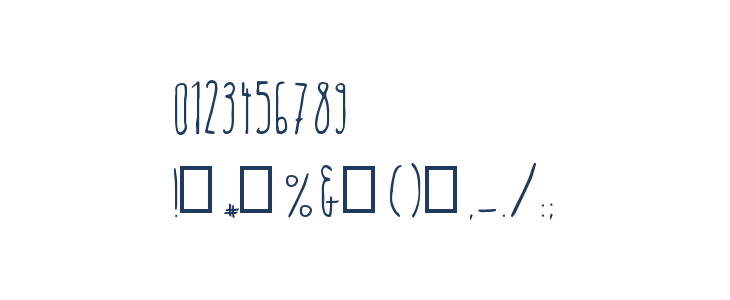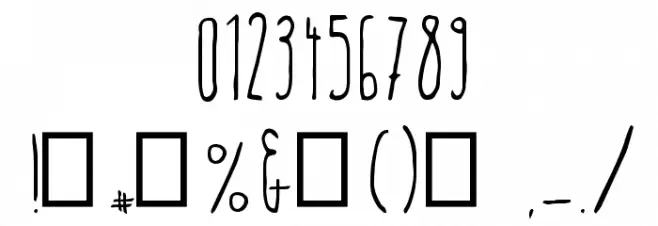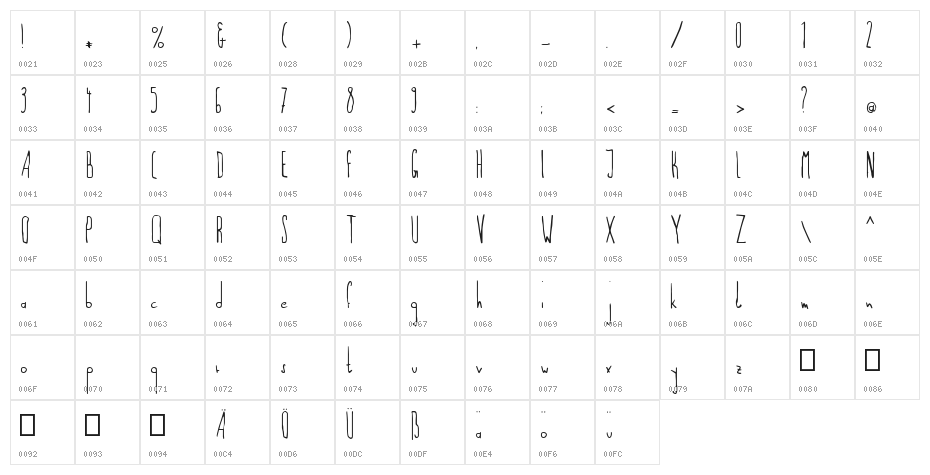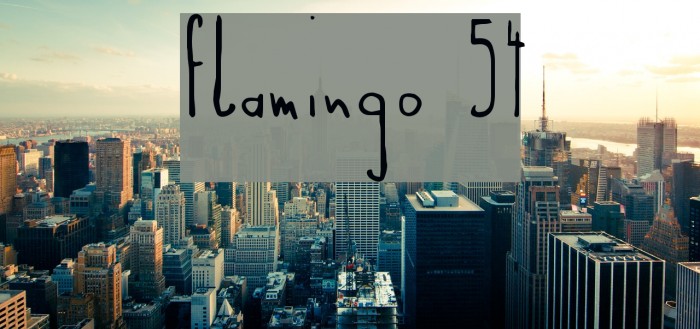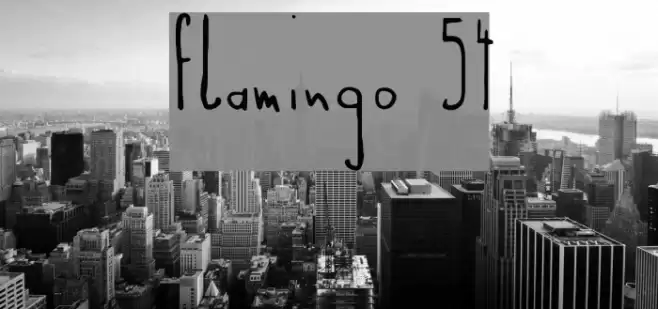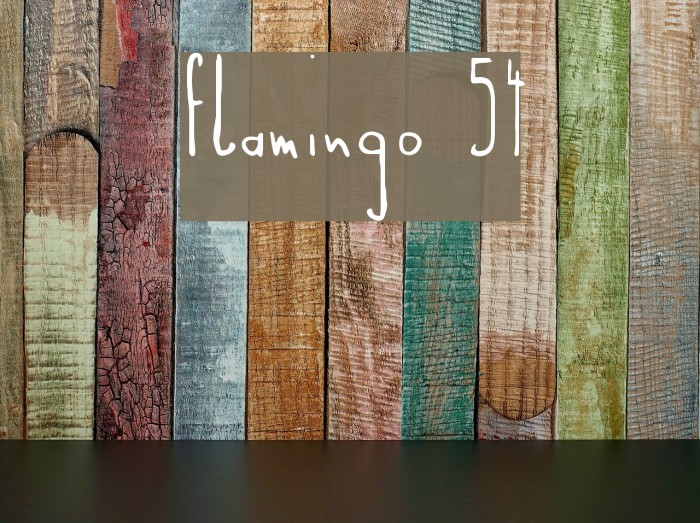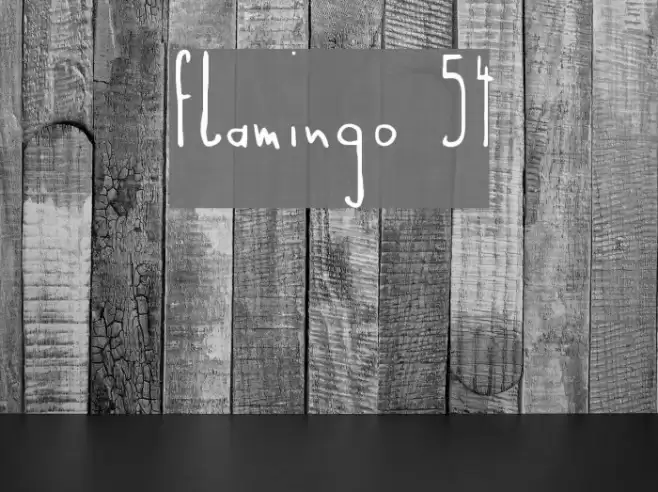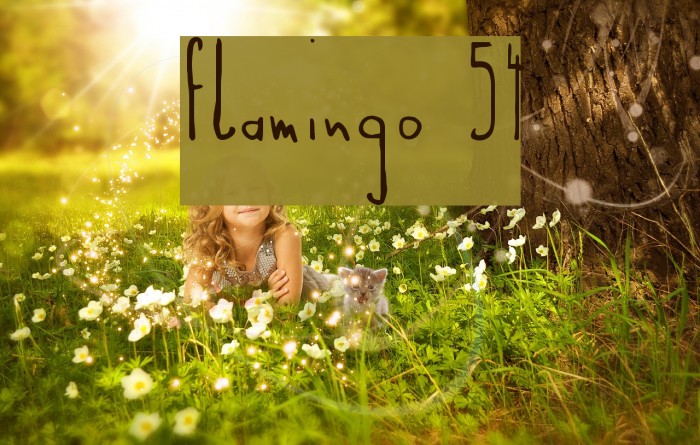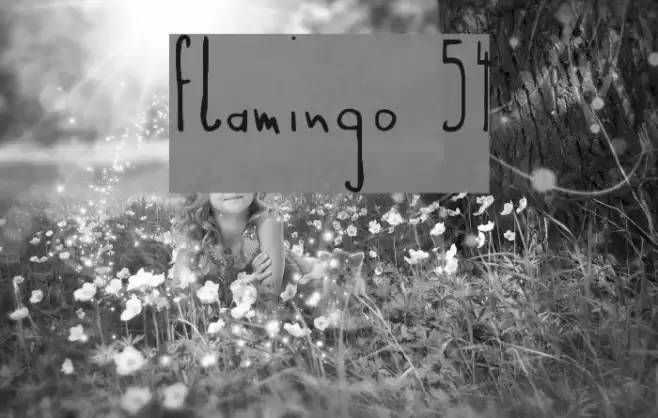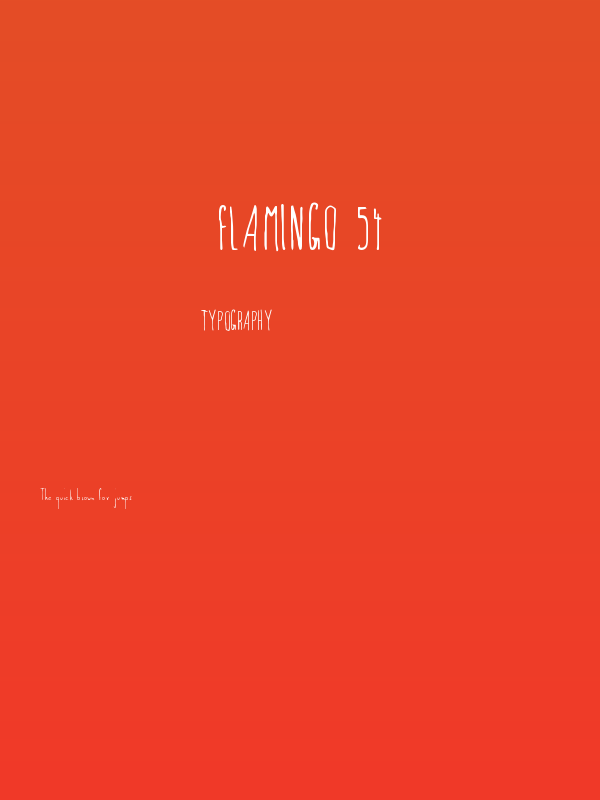
Flamingo 54 Font
Flamingo 54 Description
This font features a playful and whimsical style, characterized by its irregular and hand-drawn appearance. The uppercase letters are tall and narrow, with varying stroke thickness that adds a dynamic feel. The lowercase letters maintain a similar playful aesthetic, with some characters extending below the baseline, enhancing its casual look. The numerals are consistent with the overall style, maintaining the quirky and uneven strokes. Special characters are creatively designed, adding to the font's unique personality. This font's distinctive style makes it ideal for projects that require a touch of creativity and informality.